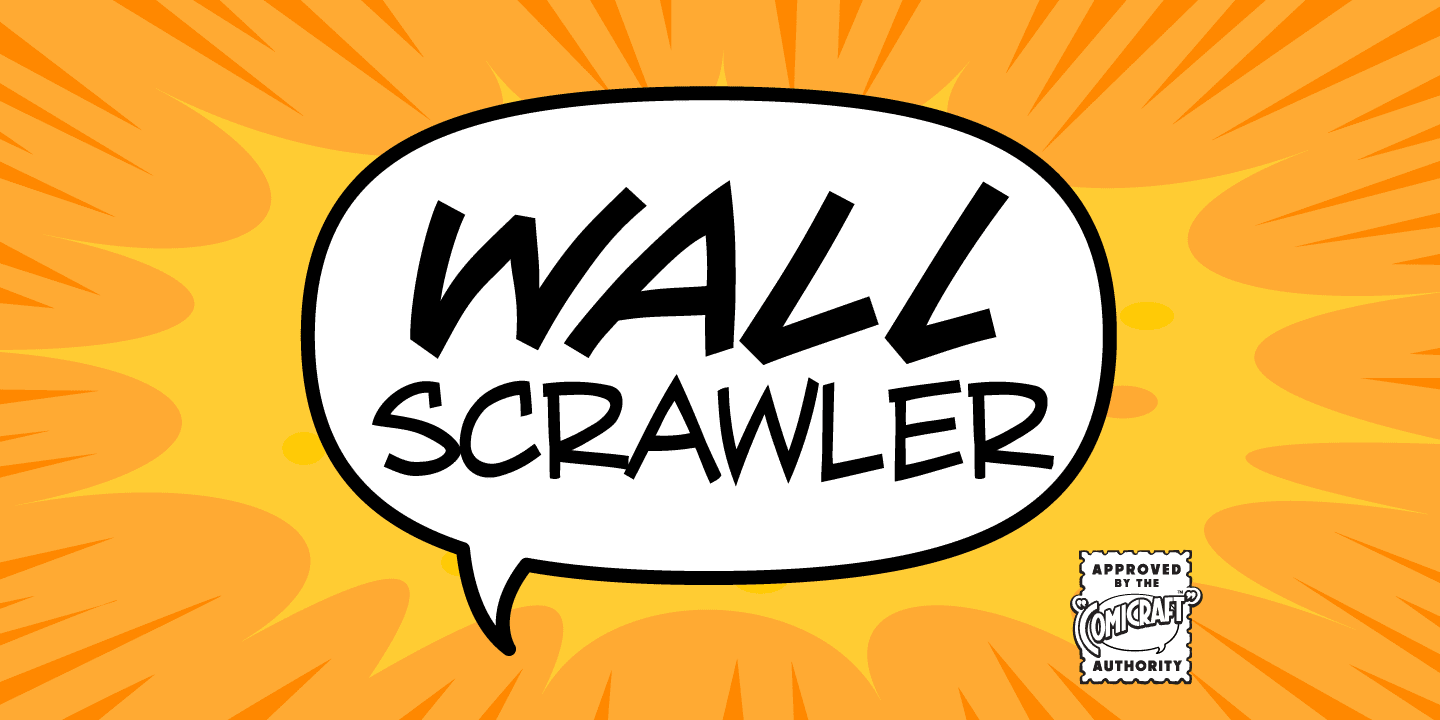
The Wall Scrawler Font Free Download is ideal for comic book designs, posters, urban branding, and sound effect text, offering a slick, graffiti-inspired aesthetic.
This font is exciting because its bold, marker-style design, crafted by John Roshell, captures the raw energy of street art and comic book flair, perfect for dynamic projects.
The Wall Scrawler family includes Regular, Italic, Bold, and Bold Italic styles, with alternate uppercase characters for versatile typography.
Unleash urban creativity with the Wall Scrawler Font Free Download, a hand-display typeface designed by John Roshell and published by Comicraft in 2011. Known for its slick, marker-drawn style, Wall Scrawler was inspired by the gritty aesthetic of Marvel’s Daredevil: Guardian Devil and praised by filmmaker Kevin Smith for its design in Jay & Silent Bob trades. With 408+ glyphs, including Western European characters, it’s perfect for bold headlines, logos, or comic-style sound effects. Available in OTF, TTF, and WOFF formats, it ensures crisp rendering across print and digital platforms. As 2025 design trends favor expressive, street-inspired typography, downloading Wall Scrawler Font Free Download keeps your work vibrant and edgy. Test the demo today at fontspring.com for personal use, and consider purchasing a commercial license at myfonts.com for full access.